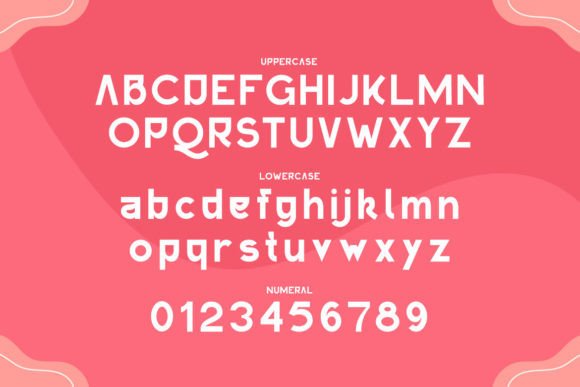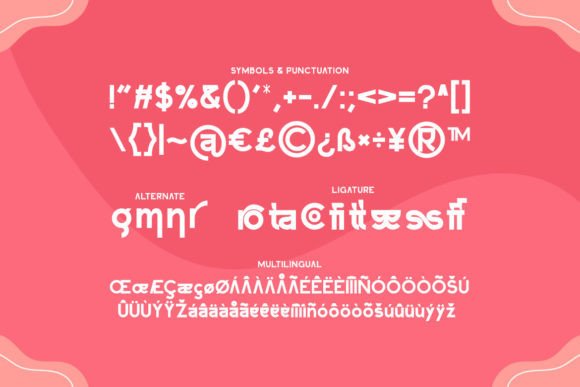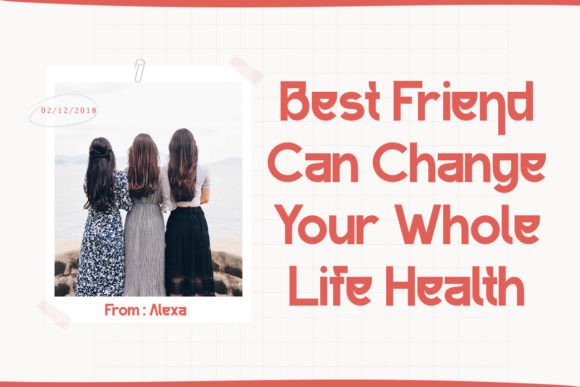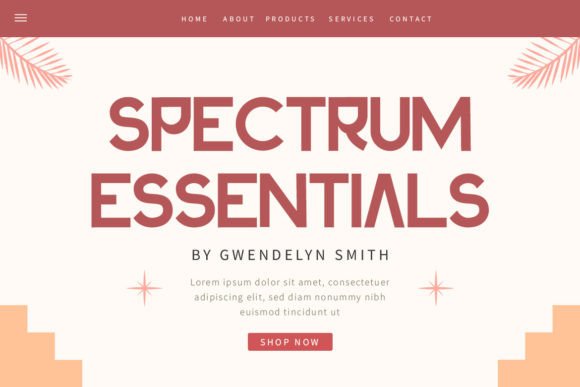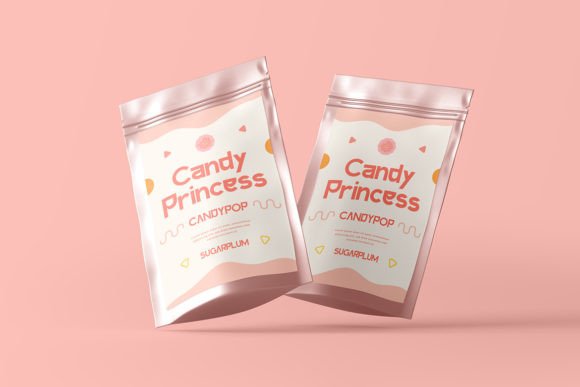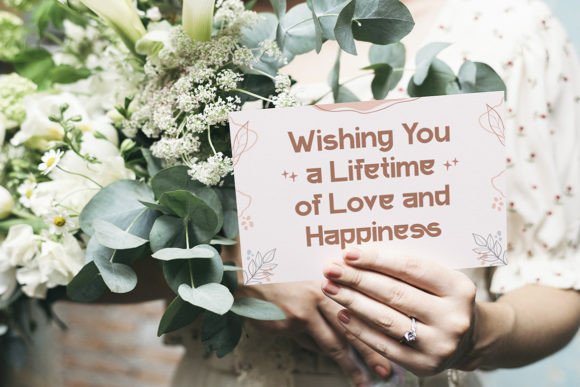
Introduction to Pinkglint Font Font
Fonts play a crucial role in design, and the Pinkglint Font font is a typeface that brings both character and versatility to any project. Whether you’re working on a branding project, a website, or a print design, the Pinkglint Font font offers a unique style that can elevate your work.
Pinkglint is a fancy sans serif font, carefully handcrafted to become a true favorite.
This font will look outstanding in any context, whether itβs being used on busy backgrounds or as a standalone headline .
Key Features of Pinkglint Font Font
Why Choose Pinkglint Font Font?
The Pinkglint Font font is more than just a typeface β it’s a design tool that helps you communicate your message with style and clarity. Its unique character set and versatile design make it suitable for a wide range of applications, from elegant invitations to bold headlines.
With its carefully crafted letterforms and balanced proportions, the Pinkglint Font font ensures readability and visual appeal across all mediums.
What makes Pinkglint Font font special?
The Pinkglint Font font stands out with its unique design, exceptional readability, and versatility across various design applications.